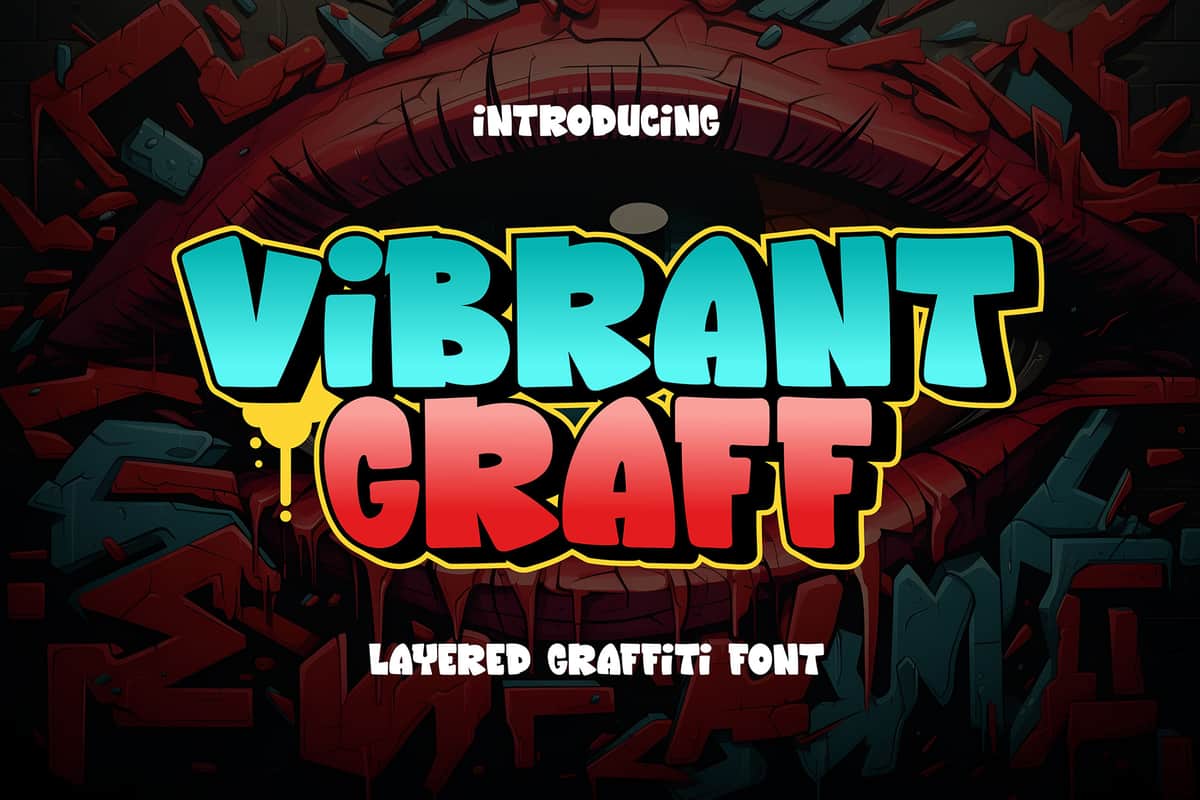
Vibrant Graff - Shadow
Step into the colorful world of urban expression with Vibrant Graff – the layered graffiti font that adds depth, dimension, and dynamism to your designs. More than just a font, Vibrant Graff is a versatile toolkit for crafting bold and eye-catching street-inspired designs that captivate audiences and leave a lasting impression.